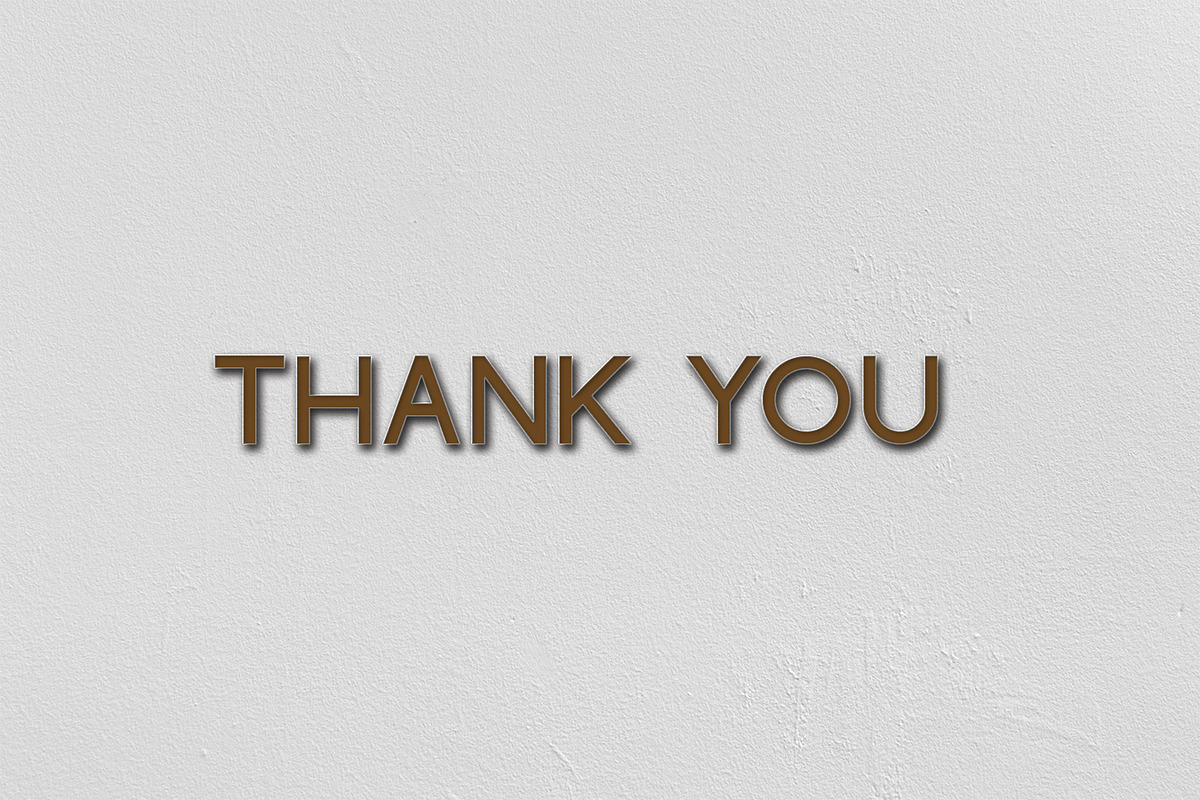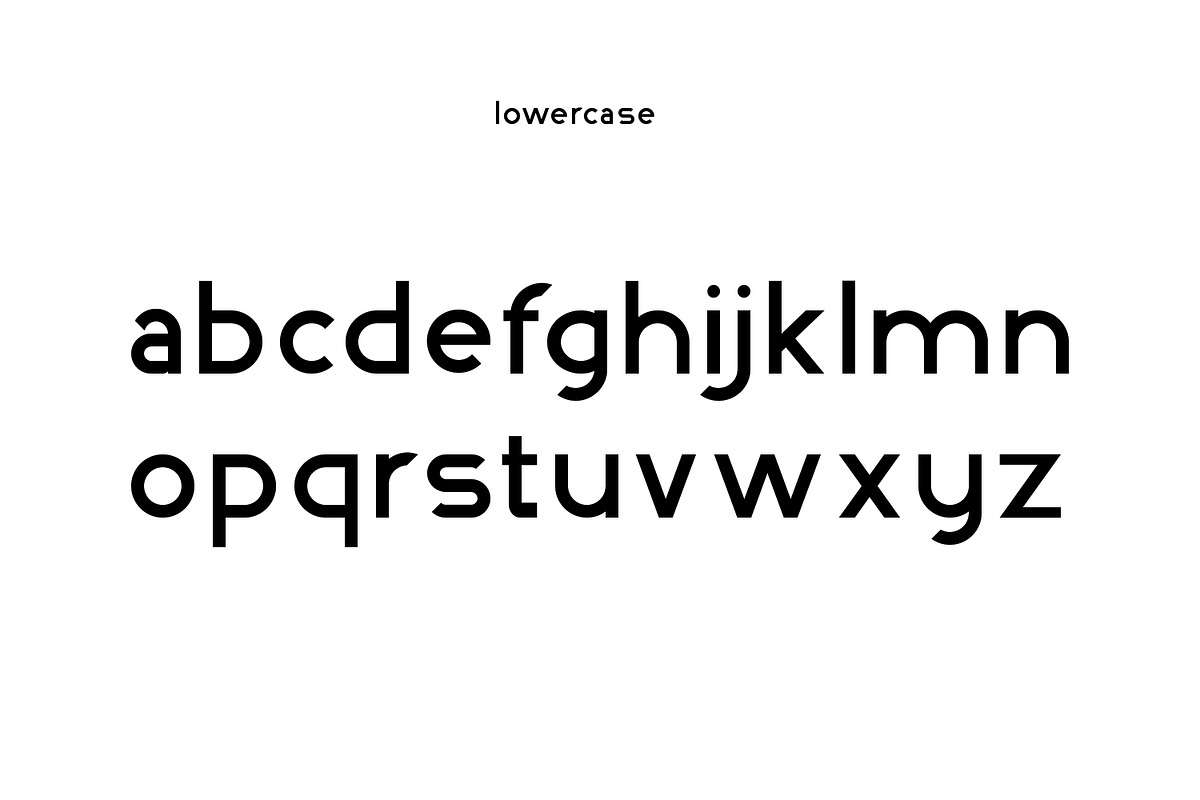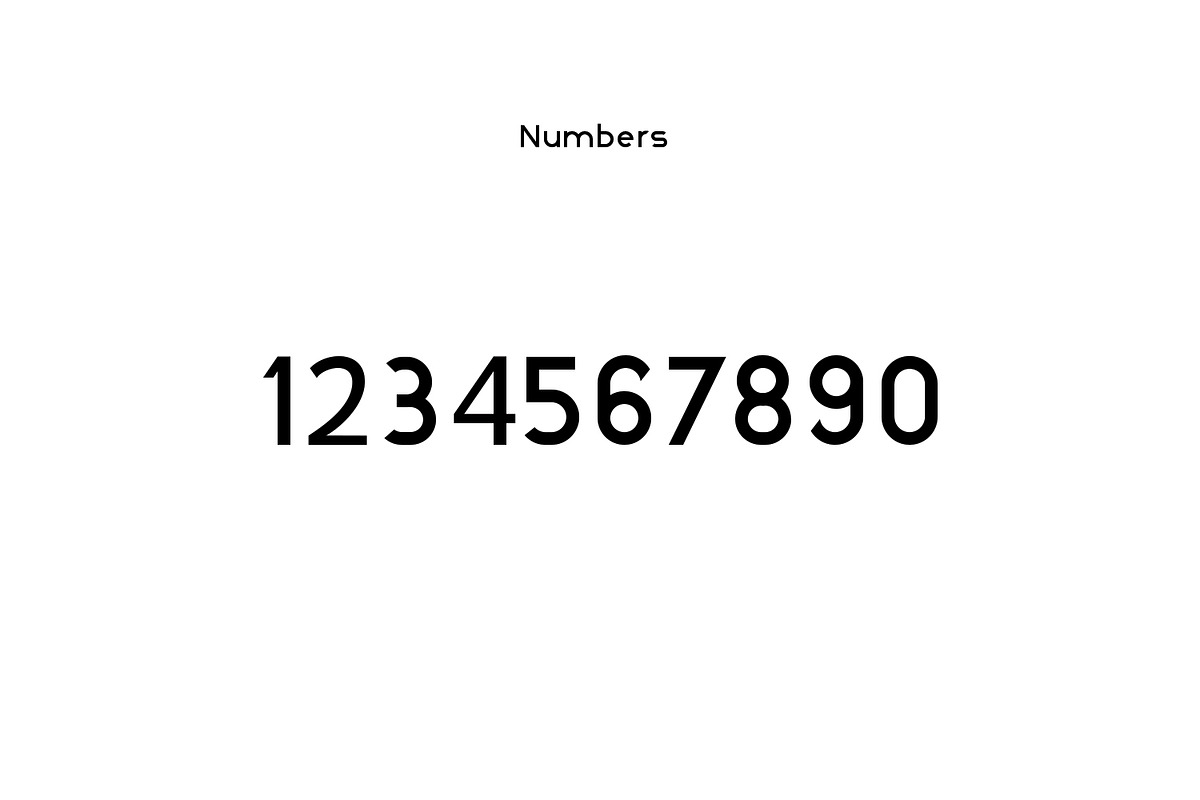
INDOSCREEN
INDOSCREEN is a font that has already become a staple in all my freelance work. It is So beautiful for quotes, logos, invitations, magazines, web, and more. With regular, it's easy to use in multiple contexts and works super well for branding suites.